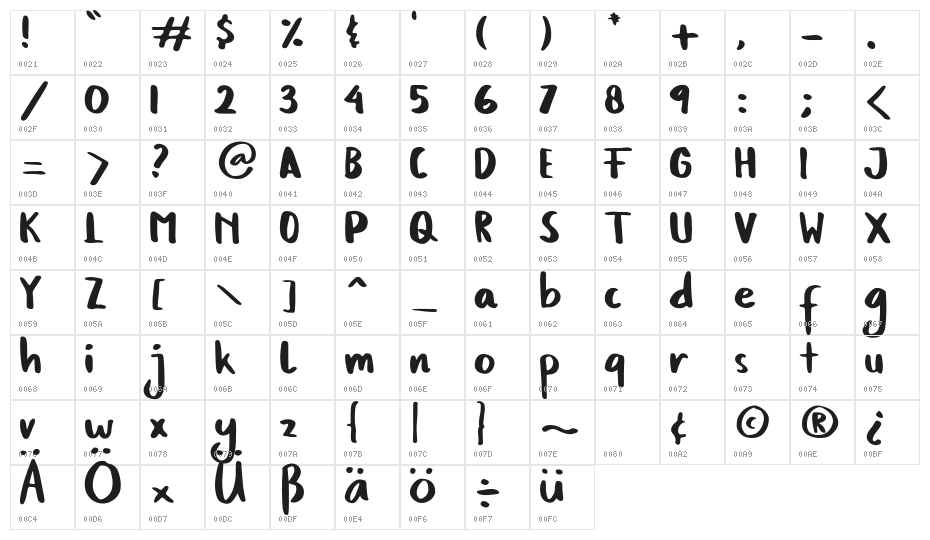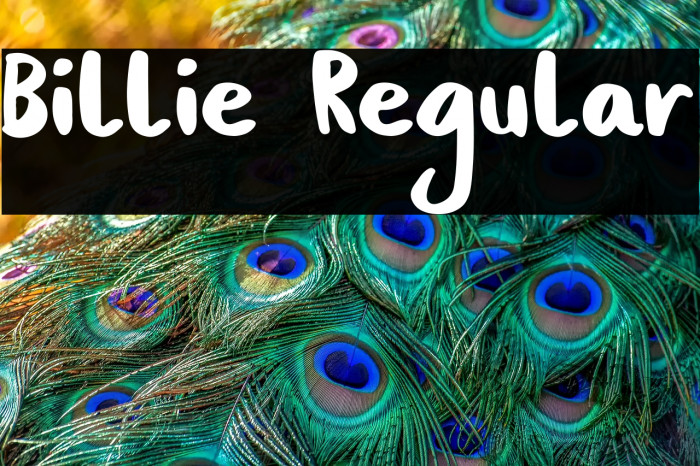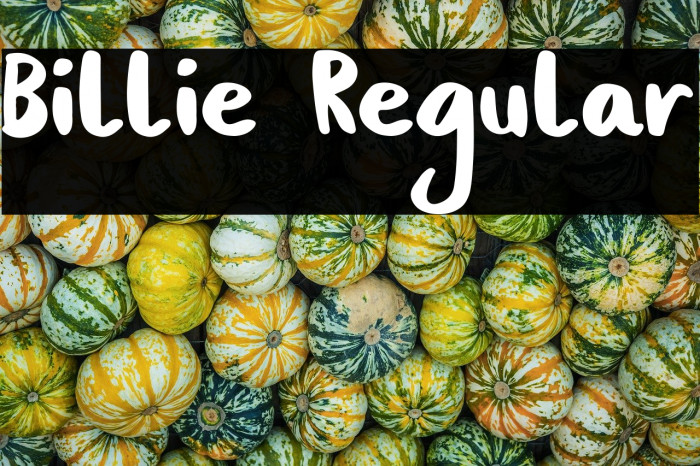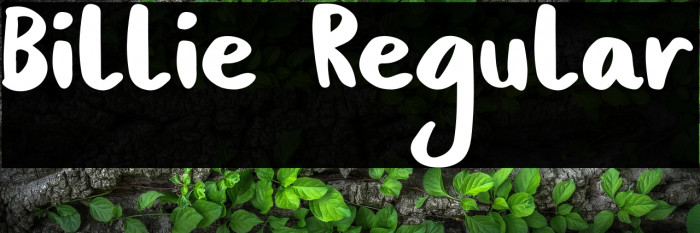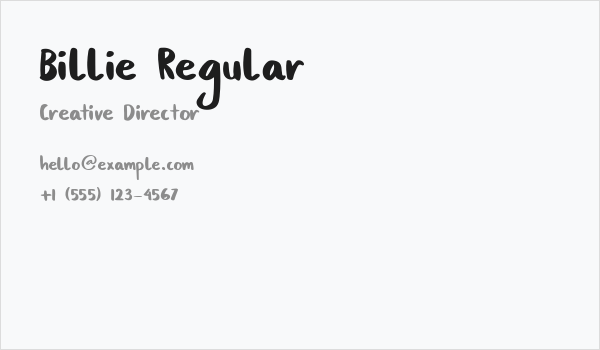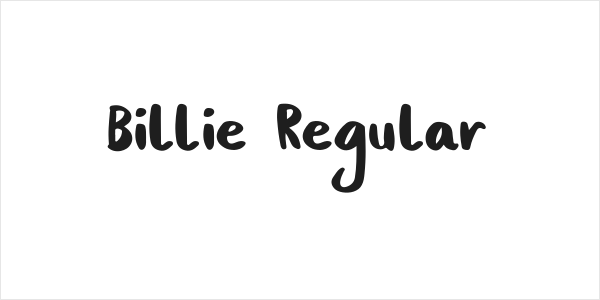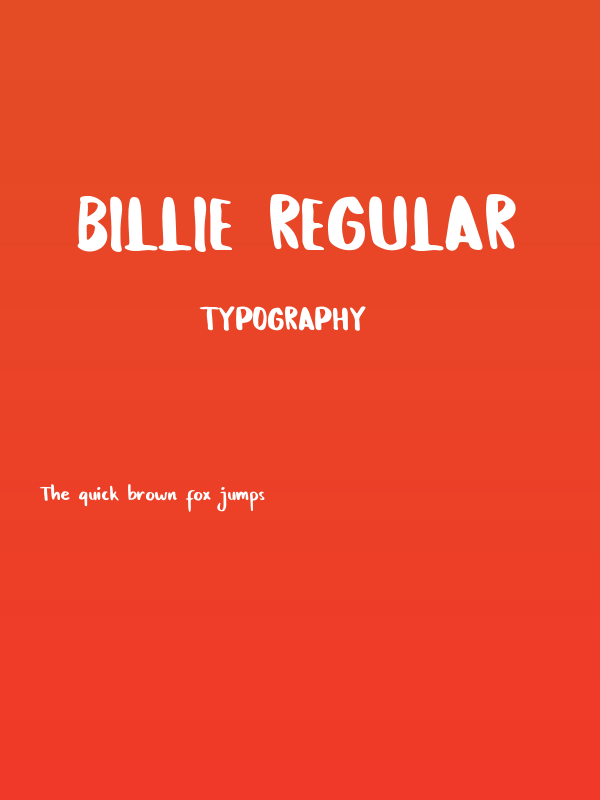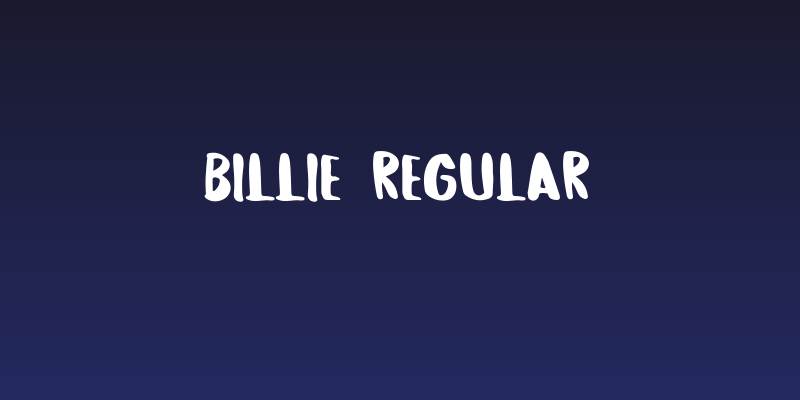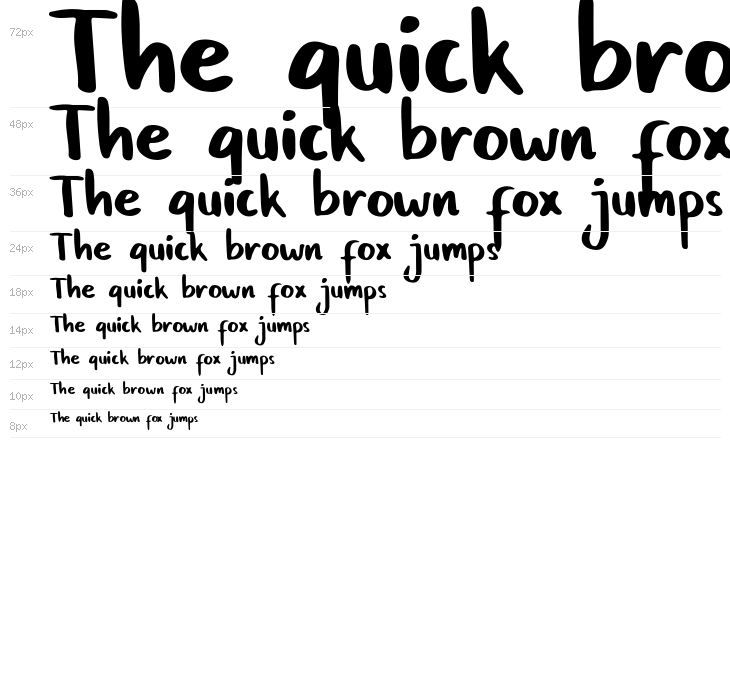
Billie Regular Font
Billie Regular Description
A playful, handwritten font with bold, rounded strokes and a casual style.
| Proposed Projects | Greeting cards, playful branding, casual invitations. |